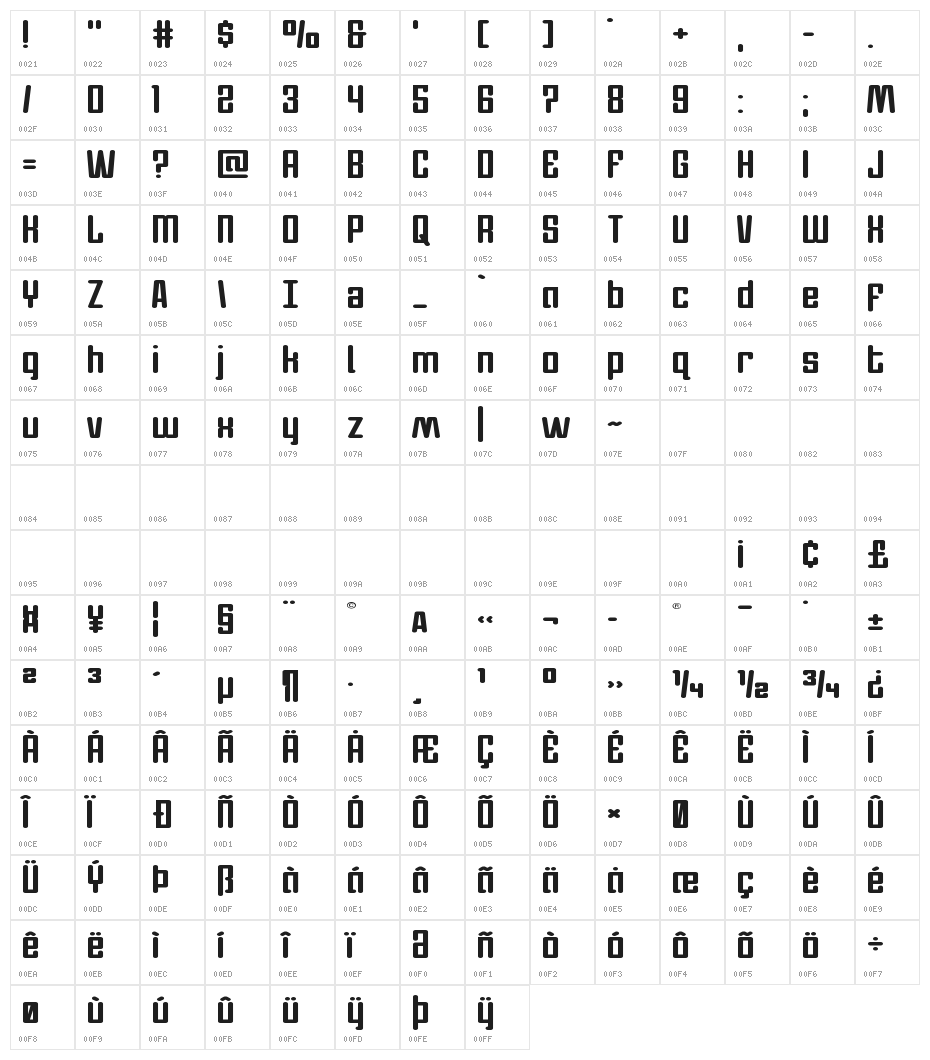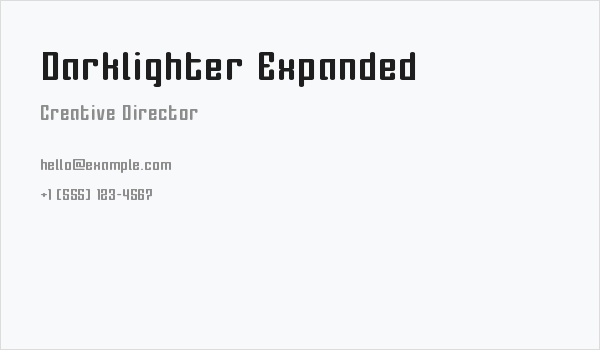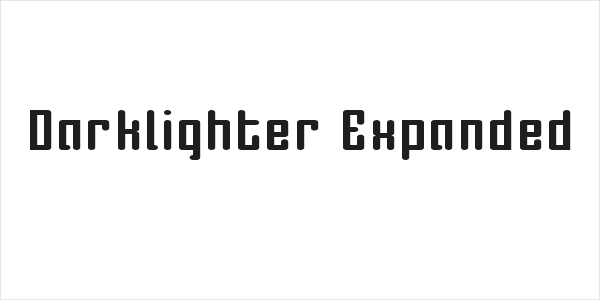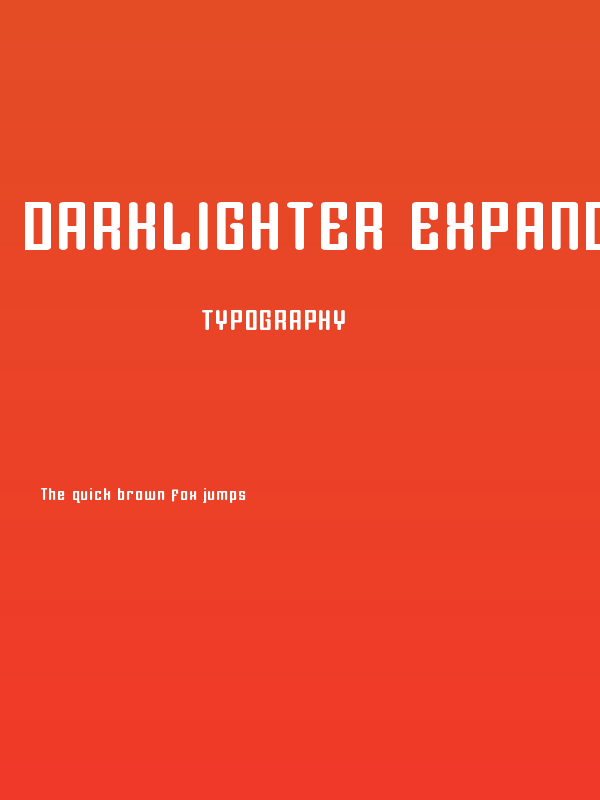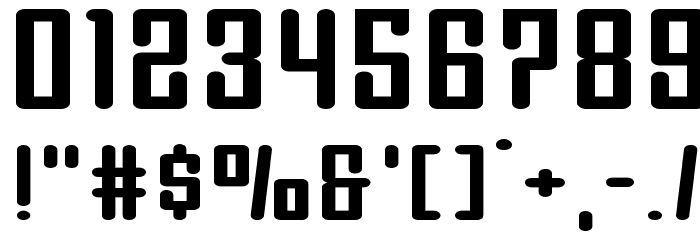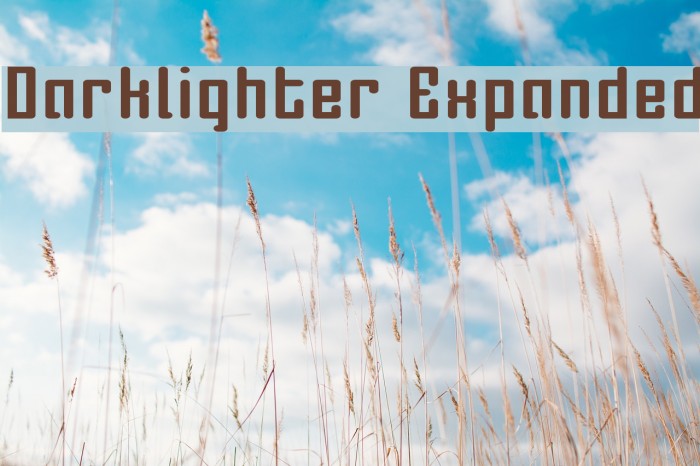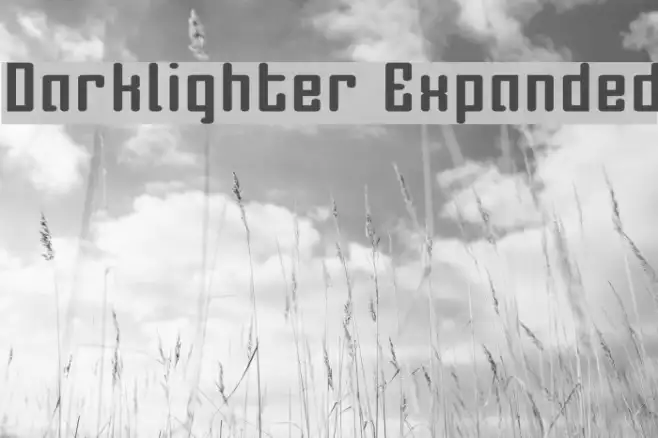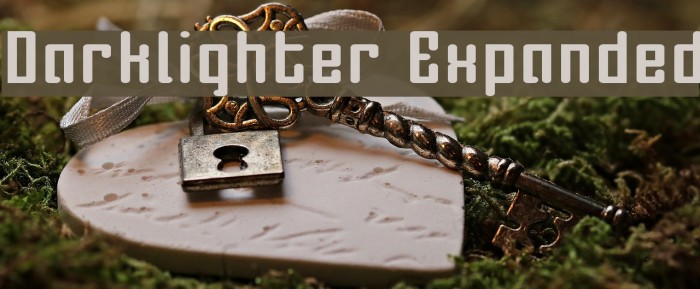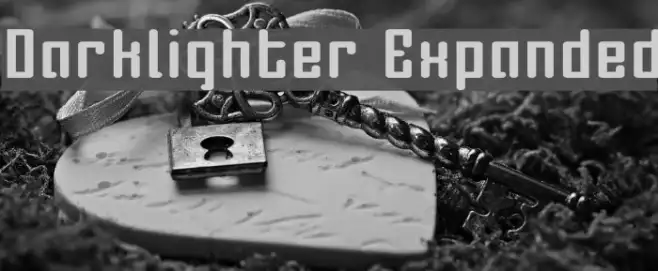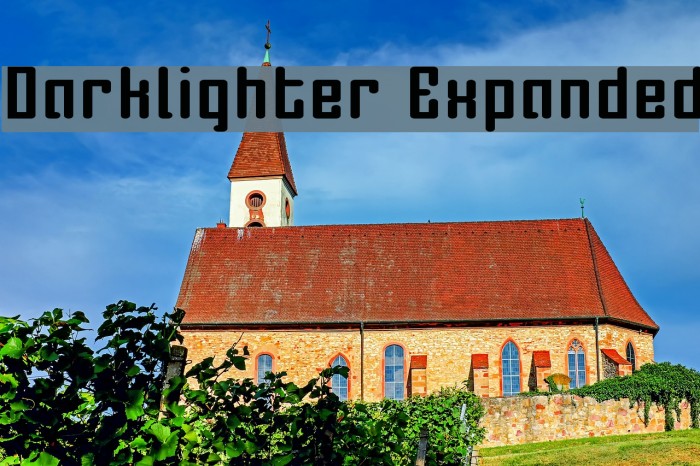
Darklighter Expanded Font
Darklighter Expanded Description
This font features a bold and expanded style with a modern, geometric appearance. The characters are uniformly thick, giving a strong and impactful look. The uppercase and lowercase letters maintain a consistent height, contributing to a cohesive visual flow. The numbers and special characters are designed to match the boldness and width of the alphabet, ensuring a balanced and harmonious appearance across all elements. The font's expanded width allows for excellent readability, making it suitable for various design applications where clarity and emphasis are needed.
| Proposed Projects | Ideal for headlines, posters, branding, and any project requiring a strong visual impact. |